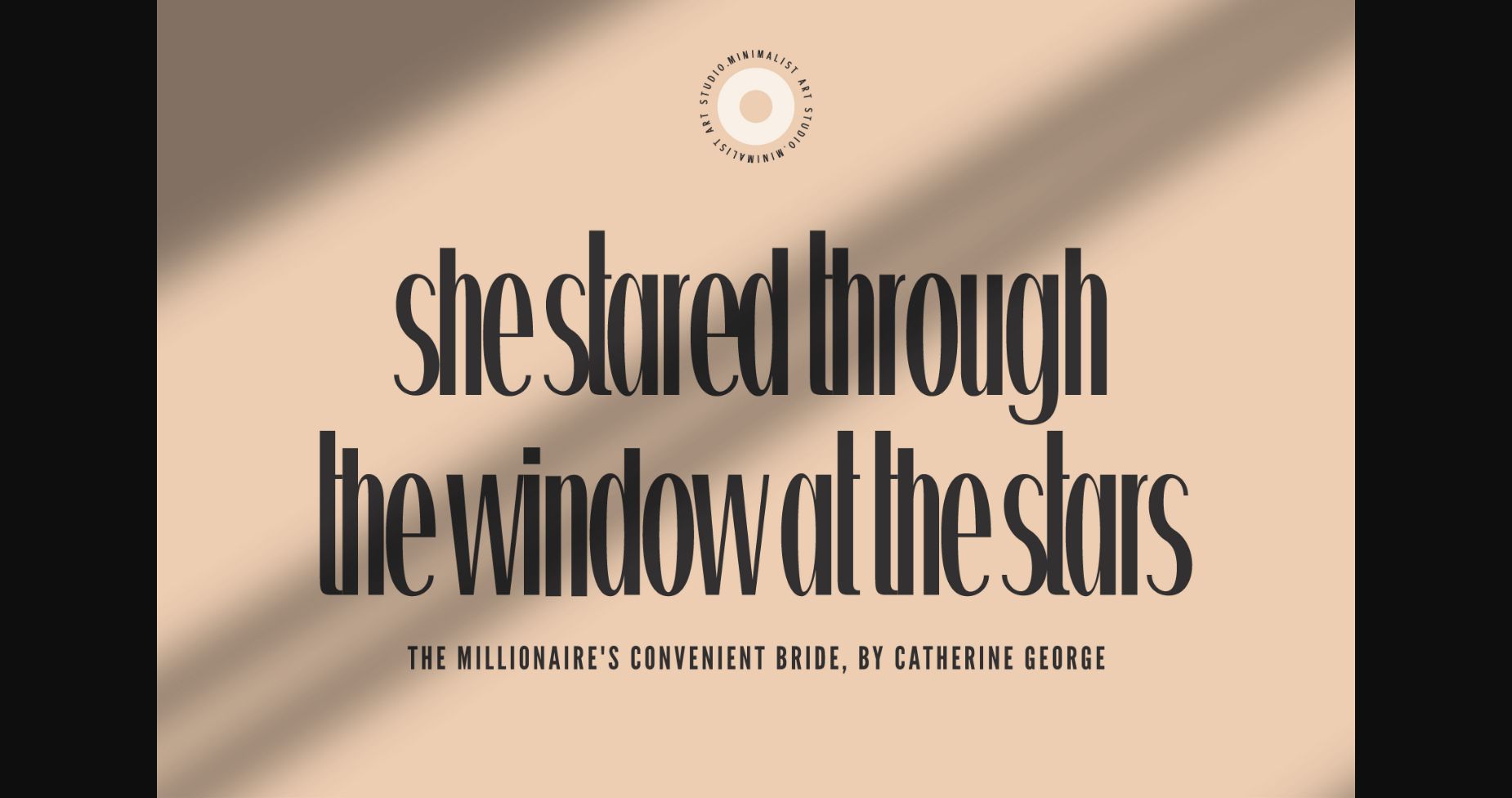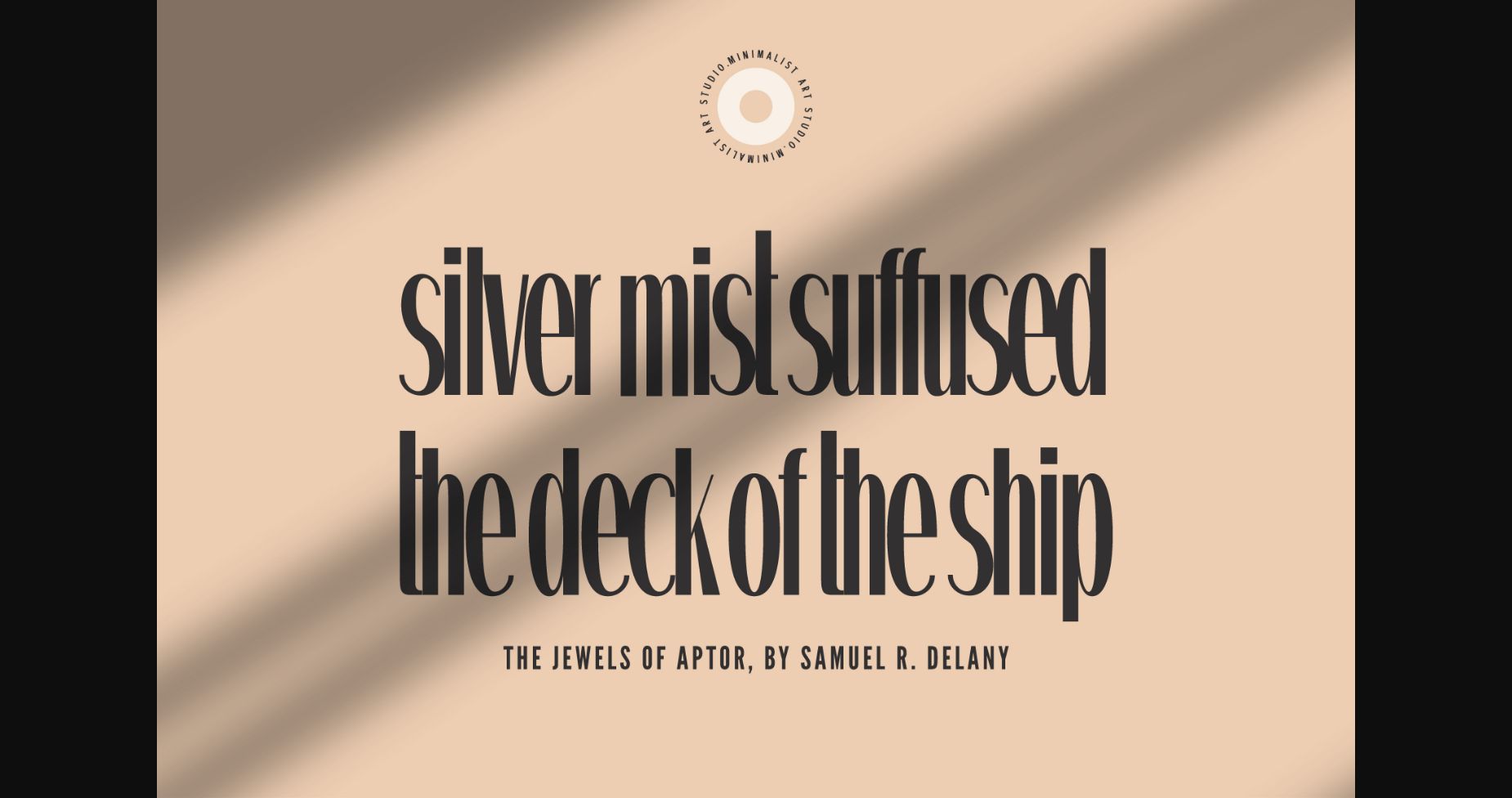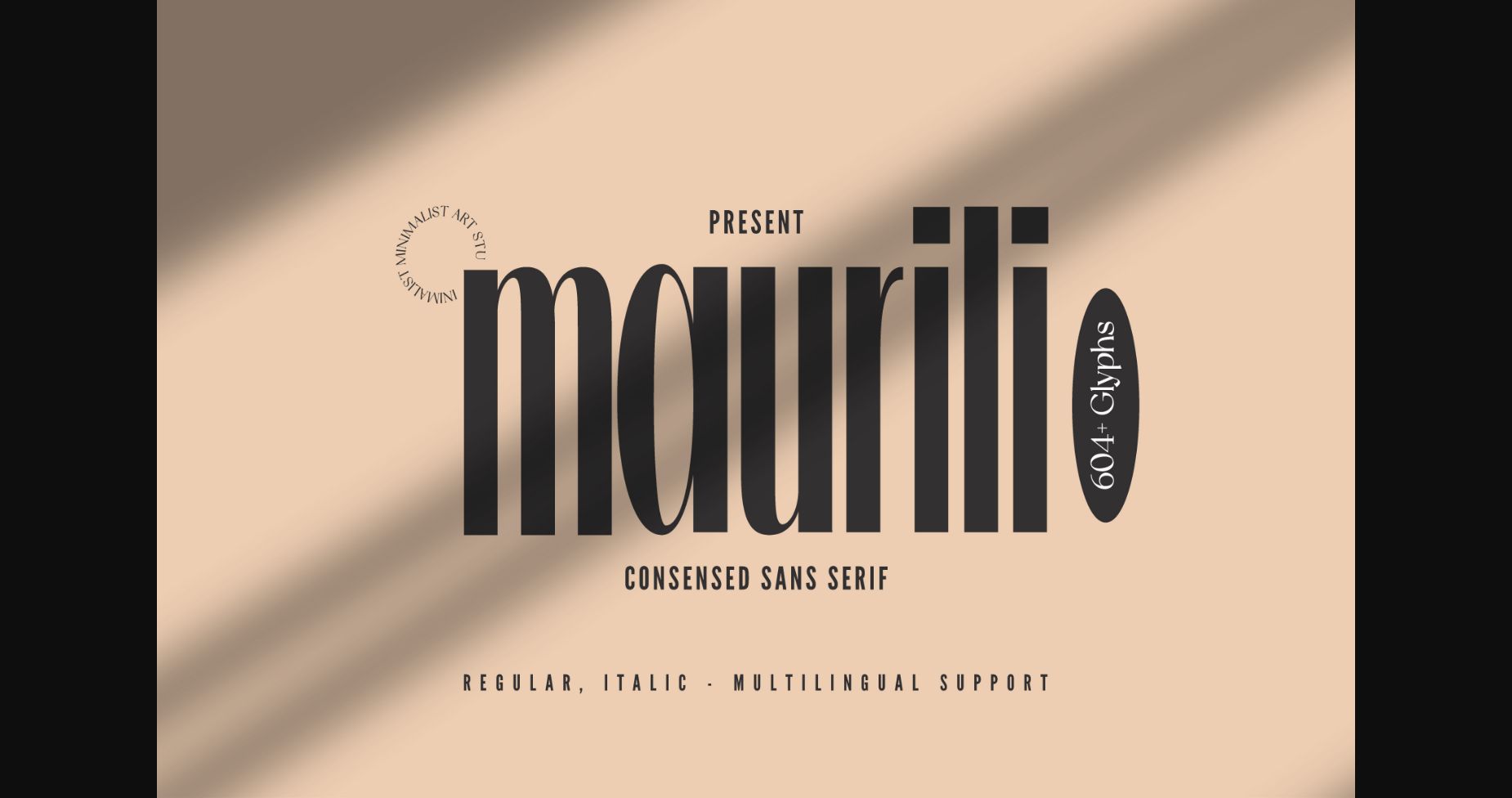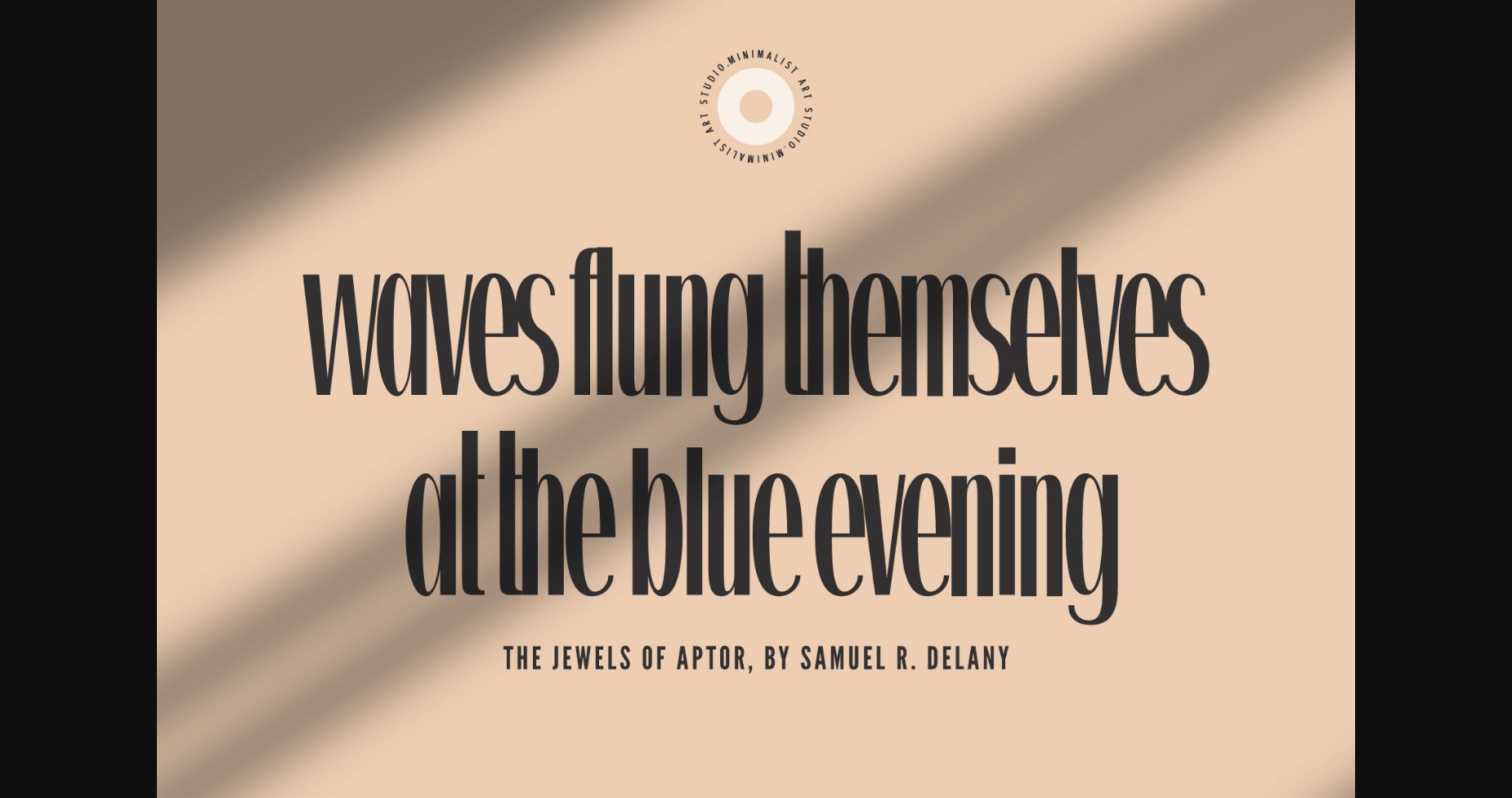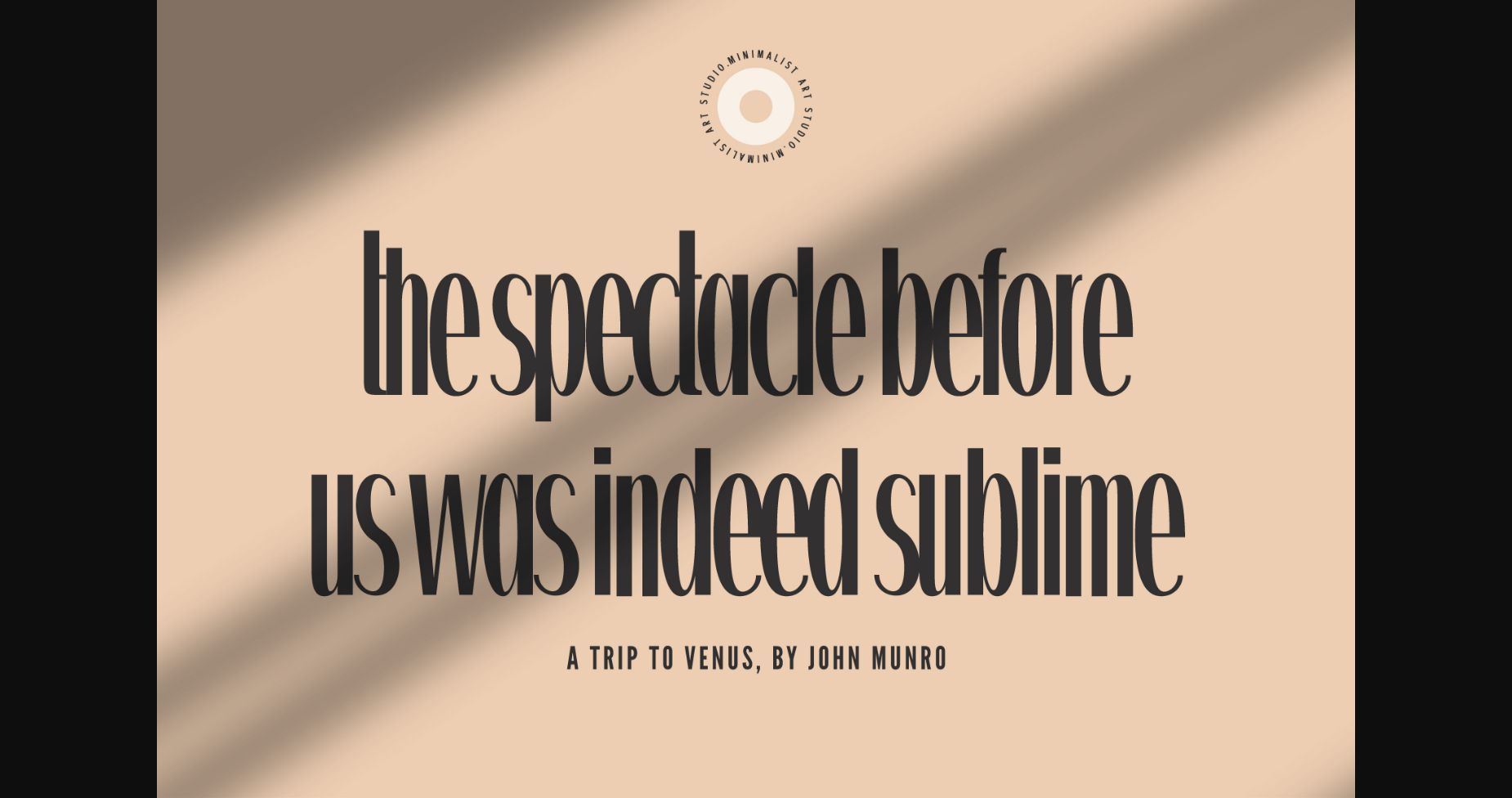
About Maurili Font
Introducing Maurili, an elegant and sophisticated sans-serif condensed font that will elevate your designs to the next level. Maurili’s minimalist design and clean lines create a timeless look that is perfect for modern designs.
Maurili’s sleek and sophisticated design will give your designs a touch of elegance and professionalism, making it perfect for corporate branding, high-end fashion, and luxury products.